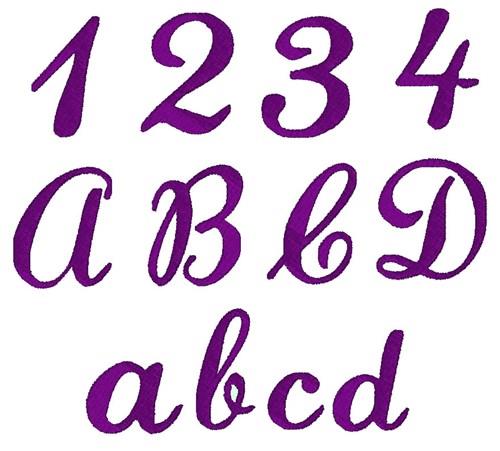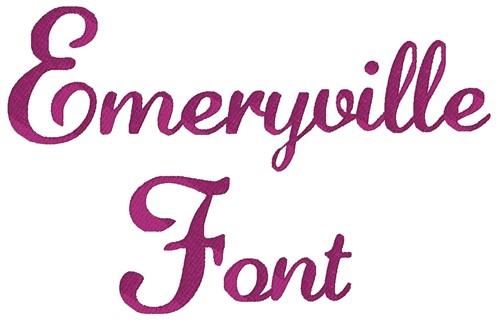
Easy Embroidery is happy to present Emeryville Script machine embroidery font which has Flowing script machine embroidery font ideal for personalizing napkins and pillowcases. This rich purple design is suitable for those seeking a handwritten style. Available in PES, DST, and 8 other formats. included. If you would like to view more embroidery fonts and alphabets please search our embroidery fonts page.